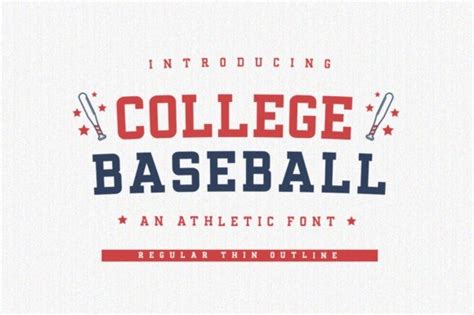
Hey guys! Are you looking to spice up your designs with a classic baseball vibe? Well, you’re in the right place! We’re diving deep into the world of the iCollege Baseball Font , offering you the lowdown on how to snag this awesome font for free and use it in your projects. Whether you’re a graphic designer, a sports enthusiast, or just someone who loves a cool font, this guide is packed with everything you need. Let’s get started and make sure you understand everything about how to obtain the iCollege Baseball Font quickly and easily. This font is perfect for creating logos, posters, team jerseys, or any design that needs that vintage baseball feel. I’ll show you where to find it, how to download it, and how to install it on your computer. Plus, I’ll give you some cool tips on how to use it effectively. So, buckle up, and let’s get that iCollege Baseball Font ready to roll!
This font is a popular choice for sports-themed projects, especially those related to baseball. The font often features a bold, slightly rounded design that mimics the lettering seen on baseball jerseys and team logos. Its clean lines and strong presence make it highly readable and visually appealing. The iCollege Baseball Font is great for creating a sense of nostalgia or a classic sports aesthetic, making it ideal for a variety of creative applications. The design is intended to evoke the classic feeling of baseball. From the classic baseball lettering on jerseys to team logos, it is the perfect font to evoke this feeling in your design. Because the style is so recognizable and appealing, there is no wonder why so many designers and sports enthusiasts use the iCollege Baseball Font in various projects. The font helps to bring a timeless and dynamic feel. The font is very versatile and can be used in many designs. Whether you’re working on digital designs, print materials, or any other type of creative project, the iCollege Baseball Font can add a touch of sporty elegance. From creating logos and sports graphics to personal projects like themed invitations, this font can enhance a variety of designs and create something that captures the essence of the game. Also, because this font is easily accessible and widely available, you won’t have to look for obscure sources. So, keep reading to discover how to download and install this awesome font quickly!
Why Choose the iCollege Baseball Font?
So, why should you pick the iCollege Baseball Font over other fonts, you might ask? Well, this font is not just any font; it’s a statement. It carries with it the spirit of the game, with a design that’s both classic and instantly recognizable. But that’s not all! The iCollege Baseball Font offers a unique blend of style and versatility. The font is versatile and can be used in many different contexts. If you’re designing for a sports team, this font will immediately convey a sense of unity and team spirit. If you’re working on a personal project, such as a themed party or invitation, this font will bring a bit of sporty elegance. The font’s bold, clear lettering ensures readability. It helps to be a great choice for both headlines and body text. The iCollege Baseball Font is not just about aesthetics; it’s also about usability. This font is a favorite among designers because it can quickly elevate any design project. It is easy to incorporate, from digital designs to print materials, and gives a professional and polished appearance. The font’s wide availability ensures you can easily access and use it, making it a convenient choice for creatives of all levels. From its timeless design to its wide range of uses, there’s a good reason why this font is so popular. The font makes it very easy to create anything with a baseball theme. The font is easily accessible for a wide audience. So, embrace the power of this font and make your design stand out.